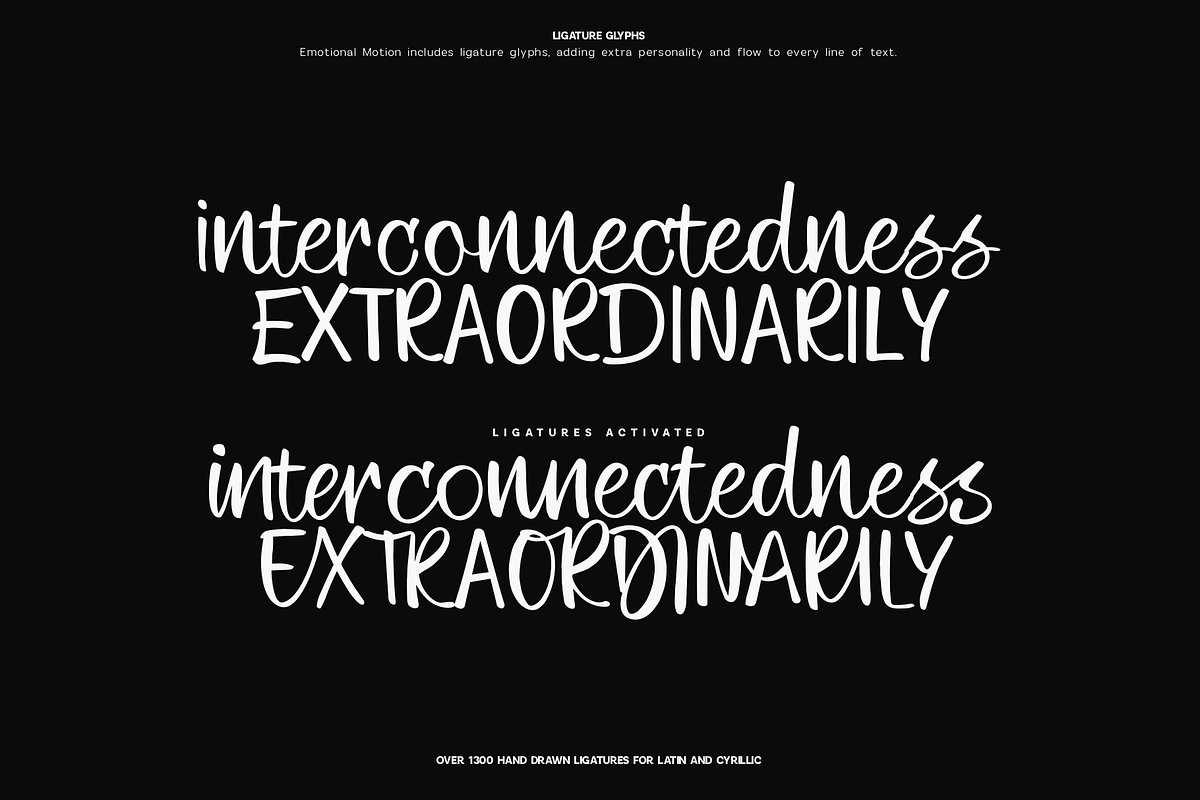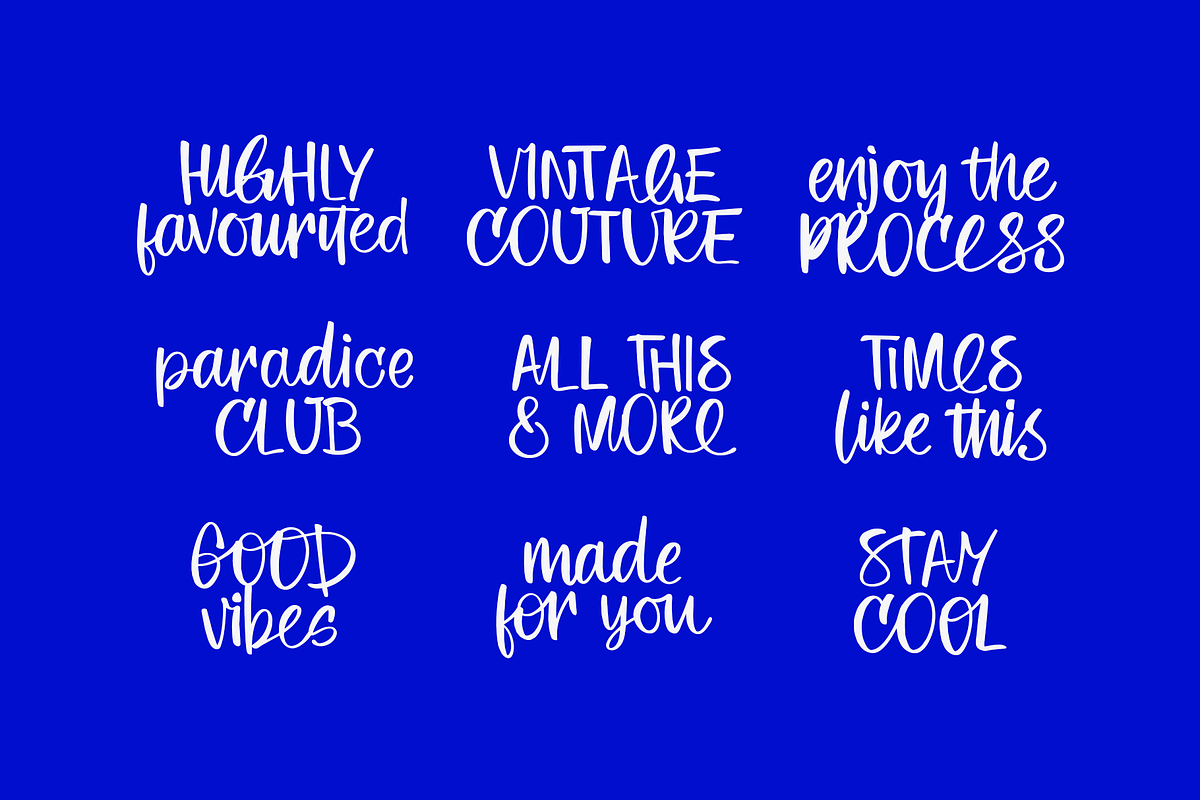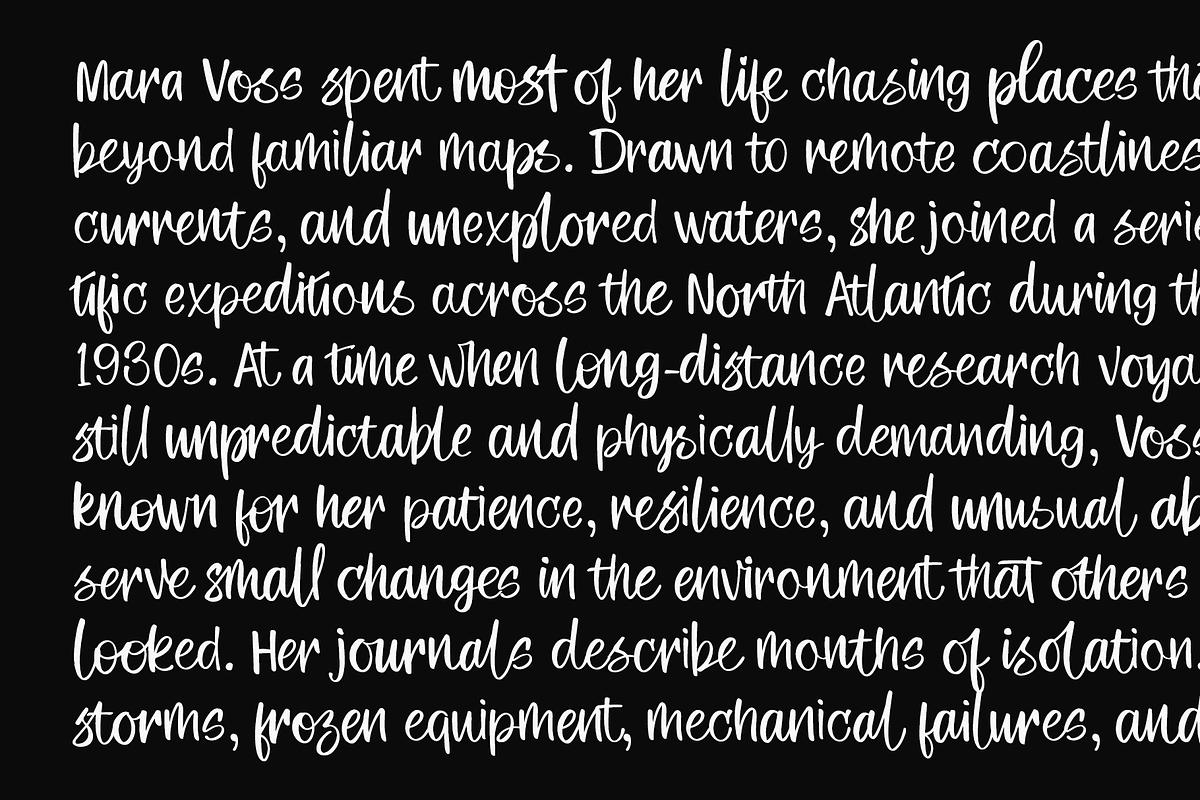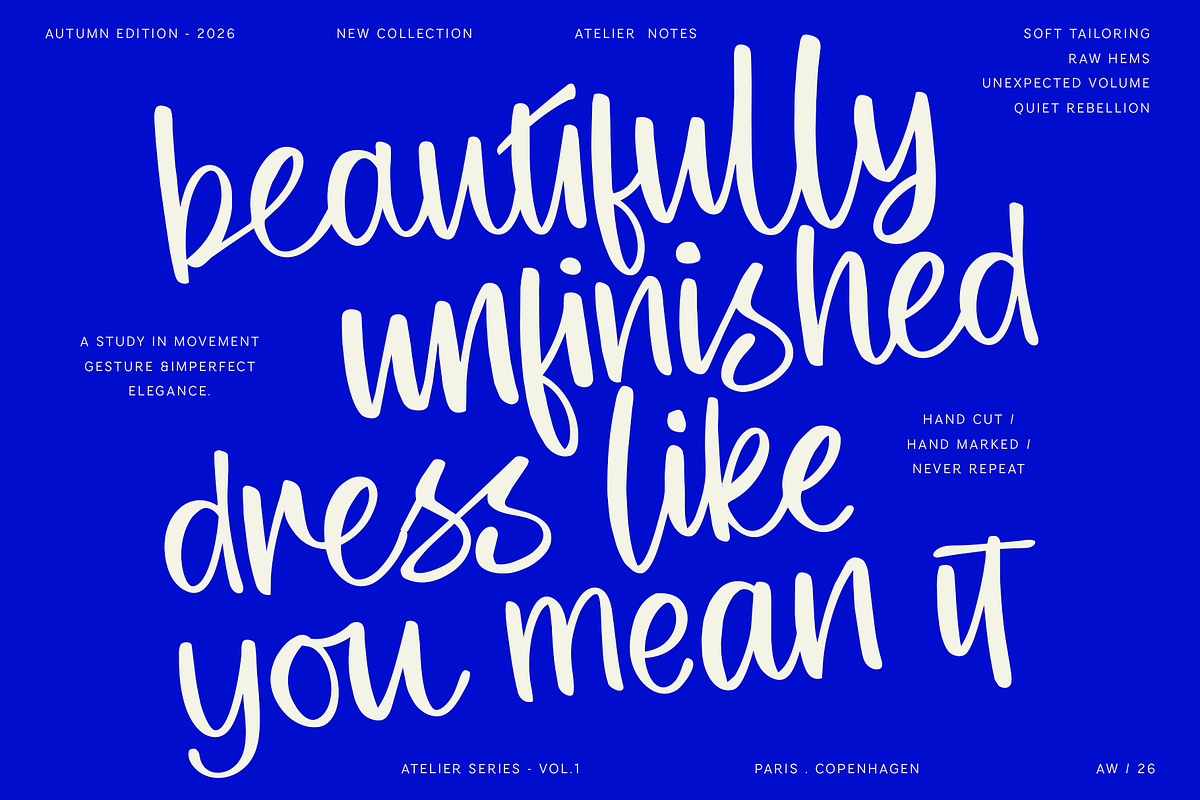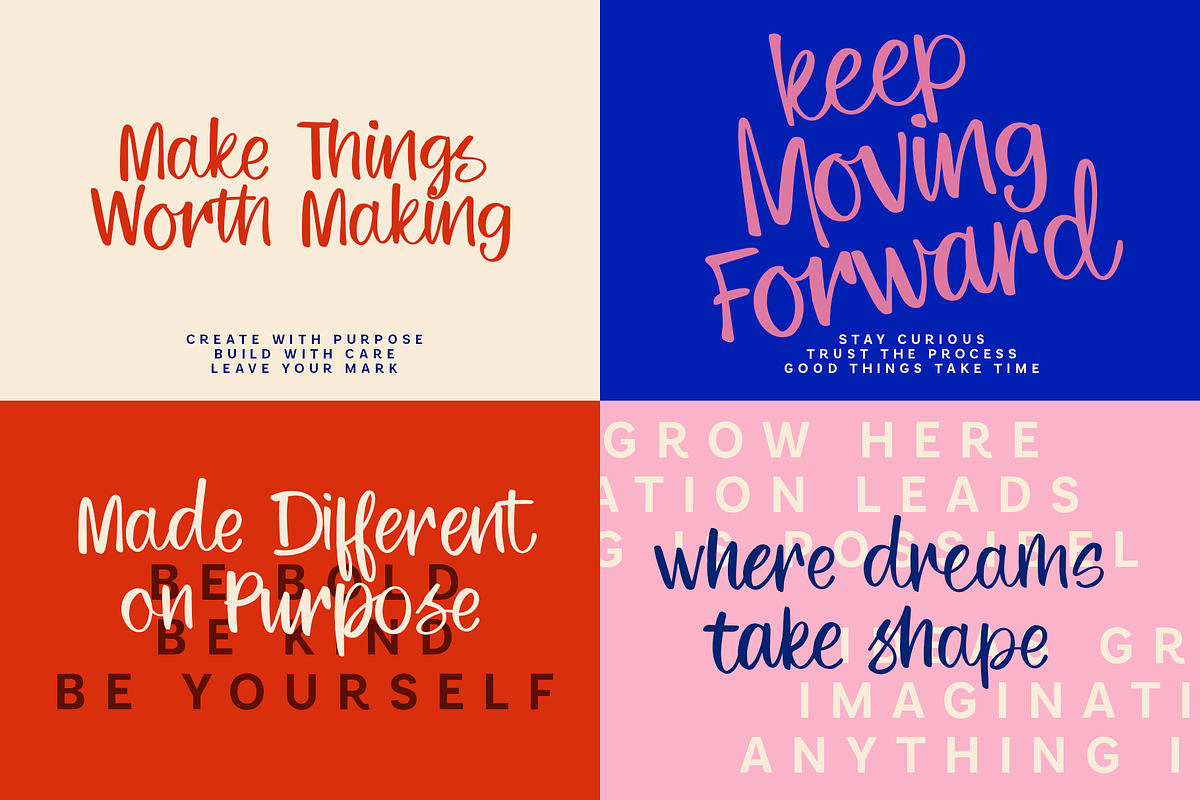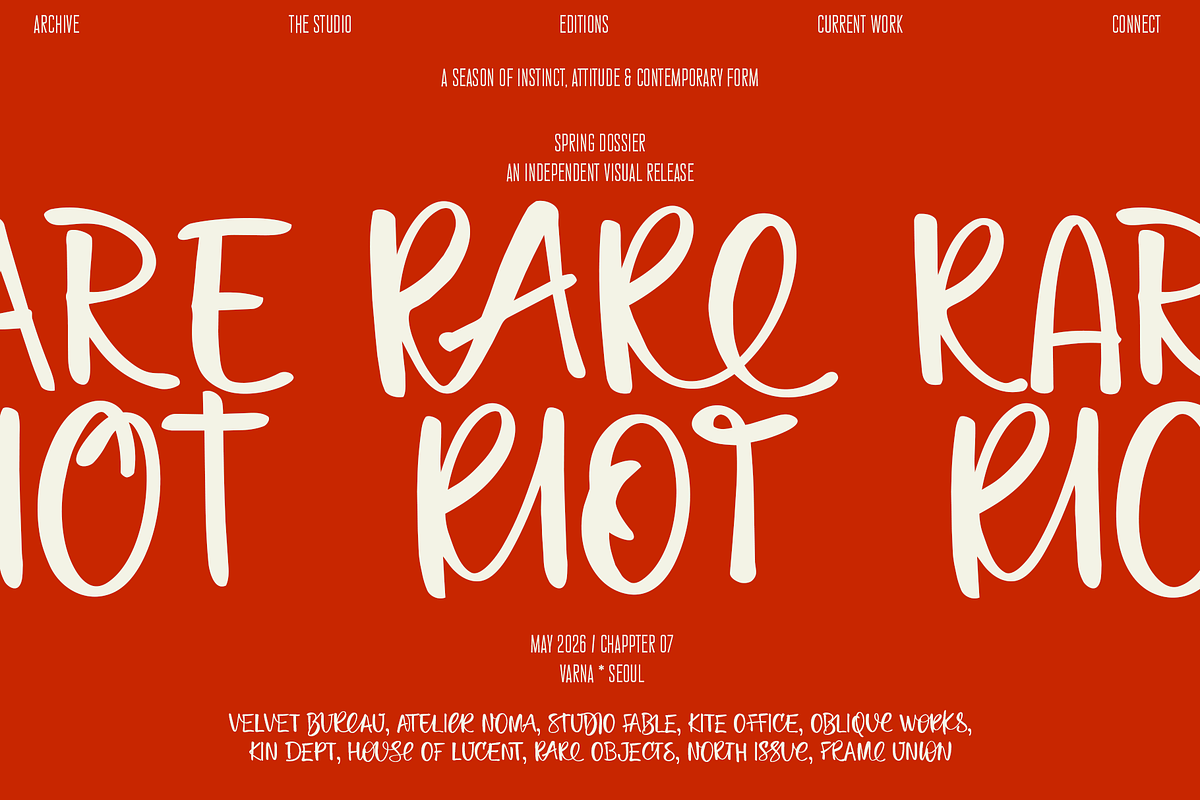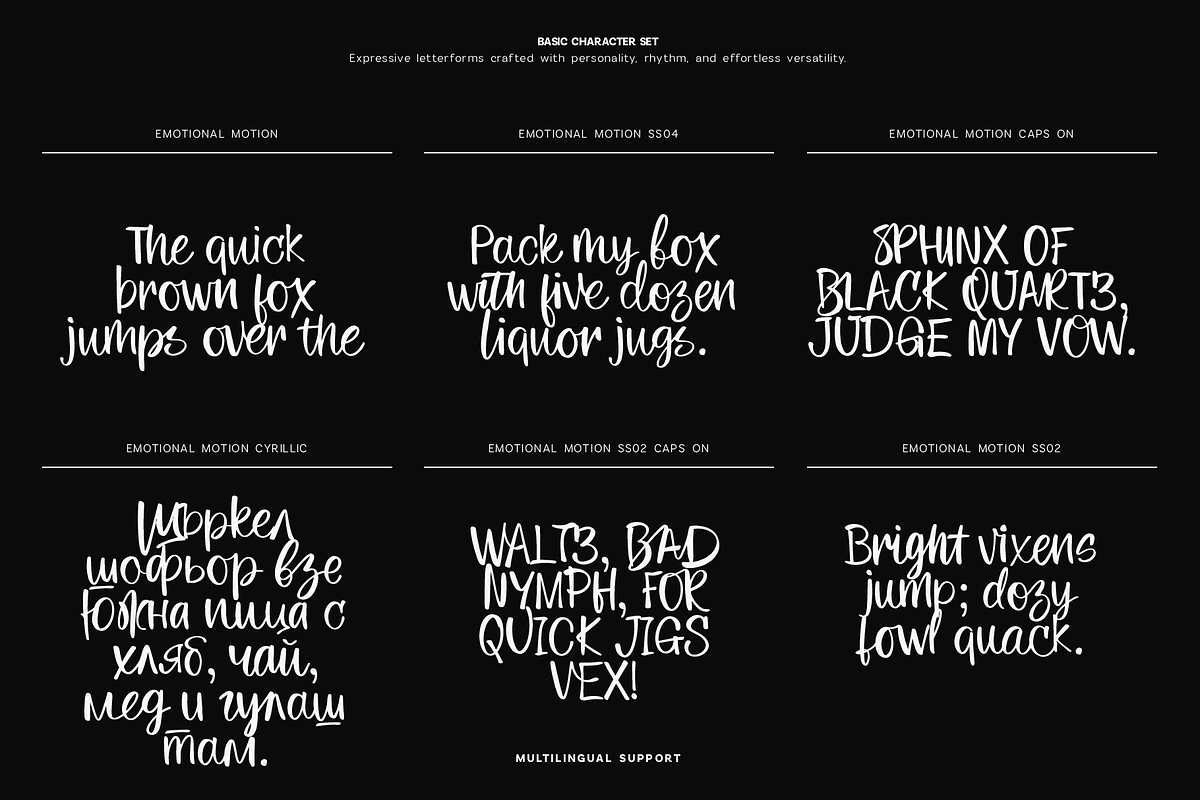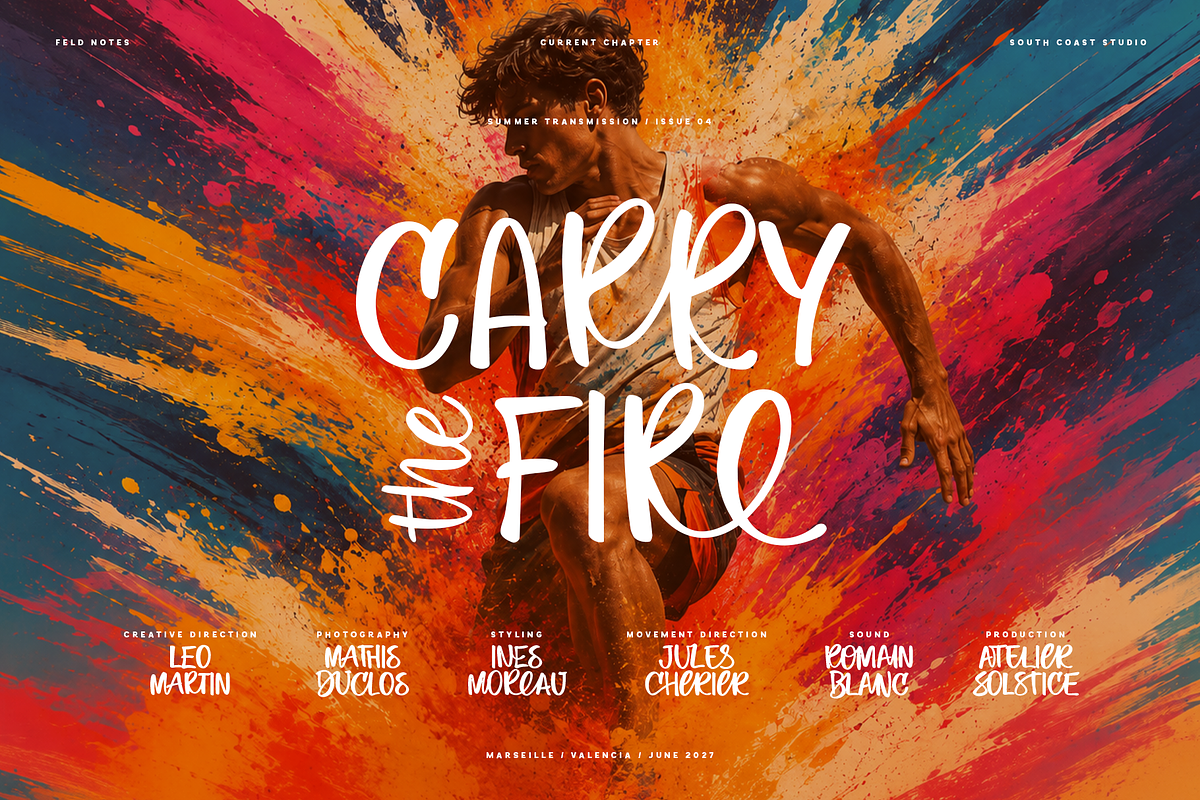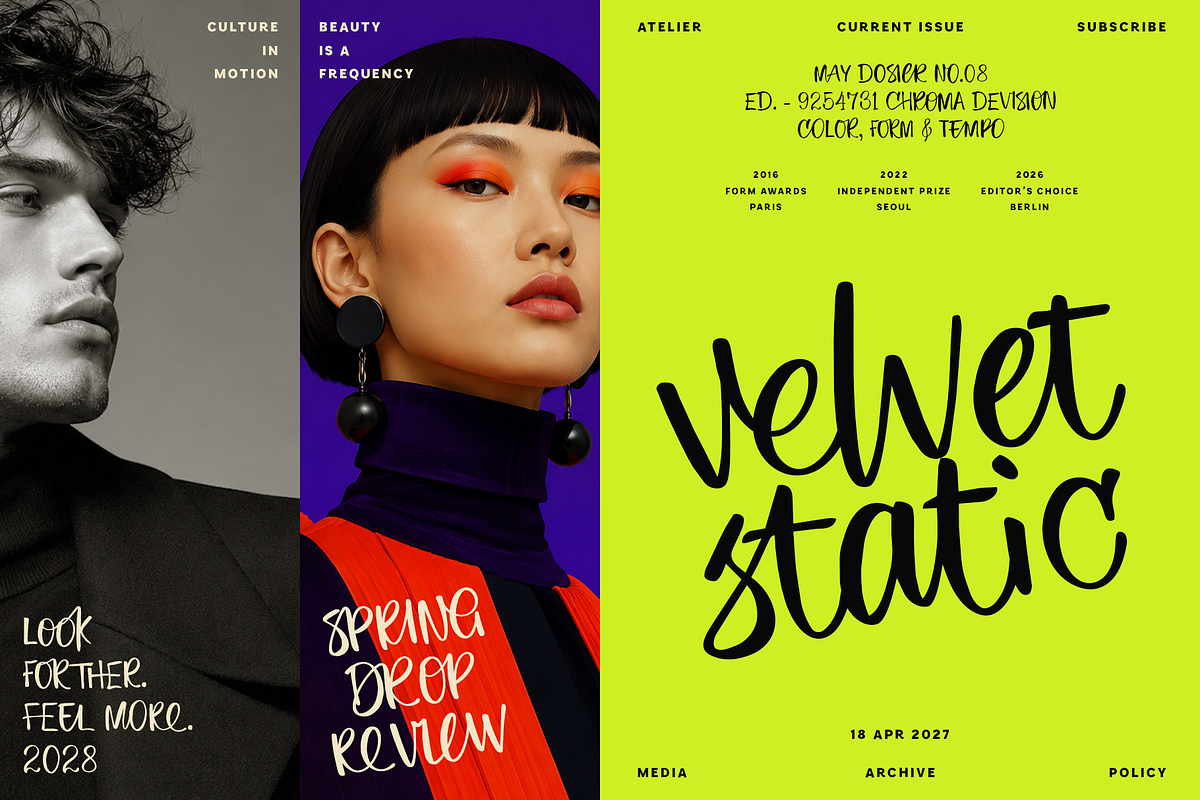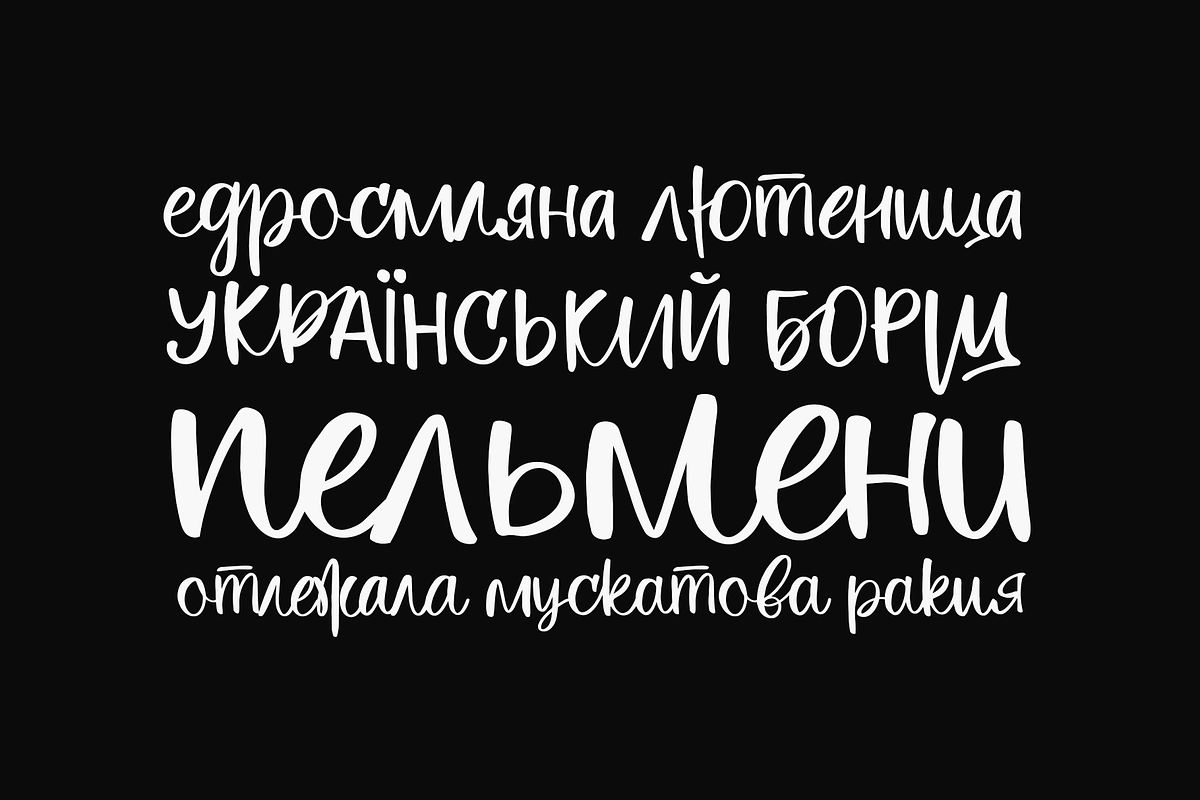
Emotional Motion - Handwritten Font
Emotional Motion is an expressive handwritten typeface built to make digital lettering feel genuinely human.
Designed with natural rhythm, unexpected connections, and constantly changing letterforms, Emotional Motion goes far beyond a typical handwriting font. With 2,300+ glyphs, 1,300+ hand-drawn ligatures, 4 stylistic sets, Extended Latin and Cyrillic support, it gives you an enormous range of possibilities for creating typography that feels spontaneous rather than repeated.
The extensive ligature system transforms common letter combinations into unique handwritten connections, helping words flow naturally and reducing the repetitive look often found in digital script fonts. Switch between the four stylistic sets to move from cleaner handwriting to more expressive, irregular and energetic lettering while keeping the same recognizable personality.
What makes Emotional Motion special
2,300+ total glyphs
1,300+ hand-drawn ligature glyphs
Ligatures for Latin and Cyrillic
4 stylistic sets
Extended Latin language support
Extensive Cyrillic character support
Numerals, punctuation and symbols
Multiple alternative letterforms
Natural handwritten rhythm
Expressive uppercase characters
Designed for both short statements and longer text
Rather than creating one perfect version of every letter, Emotional Motion embraces variation. Characters change, connections shift and words develop their own rhythm — giving headlines, quotes and branding a much more organic personality.
It works especially well for editorial design, fashion branding, magazines, posters, packaging, social media, campaigns, logos, creative direction, album artwork, invitations, merchandise and expressive typography.
From oversized fashion headlines to intimate handwritten notes, Emotional Motion can move between raw, elegant, playful, rebellious and understated without losing its identity.
One typeface. Thousands of combinations. Built to never feel repeated.